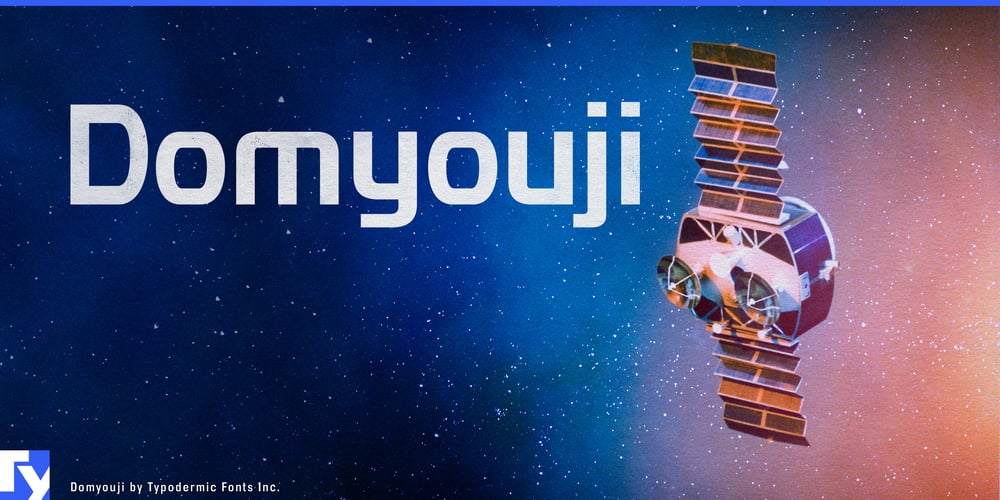
Domyouji Font Family was designed by Ray Larabie and published by Typodermic. Domyouji contains 4 styles and family package options. Domyouji: The typeface that fuses ’70s industrial edge with modern precision. This Typodermic Fonts creation is a time-traveling chameleon, perfectly complementing Korataki with its blend of soft curves and strong corners.Four distinct styles—Regular, Italic, Dirty, and Spraypaint—offer versatility from boardroom to street. Each character balances organic warmth with digital efficiency, speaking the language of technological innovation fluently. Imagine your brand story in Domyouji, each word bridging industrial heritage and future tech. Picture UI designs where every element exudes approachability and precision. Envision product packaging that marries retro cool with cutting-edge sophistication.Fluent in numerous Latin-based European writing systems, Domyouji ensures your message retains its character from Helsinki’s tech hubs to Milan’s industrial centers. This isn’t for designers seeking anonymity. It’s for innovators who respect roots while pushing boundaries. For brands conveying tech prowess with humanity. For messages that resonate with both logic and emotion.Ready to upgrade your typographic toolkit? Embrace Domyouji and elevate your projects with technological sophistication. In a world oscillating between cold minimalism and chaotic expression, Domyouji stands apart—communicating progress through the perfect fusion of past and future.